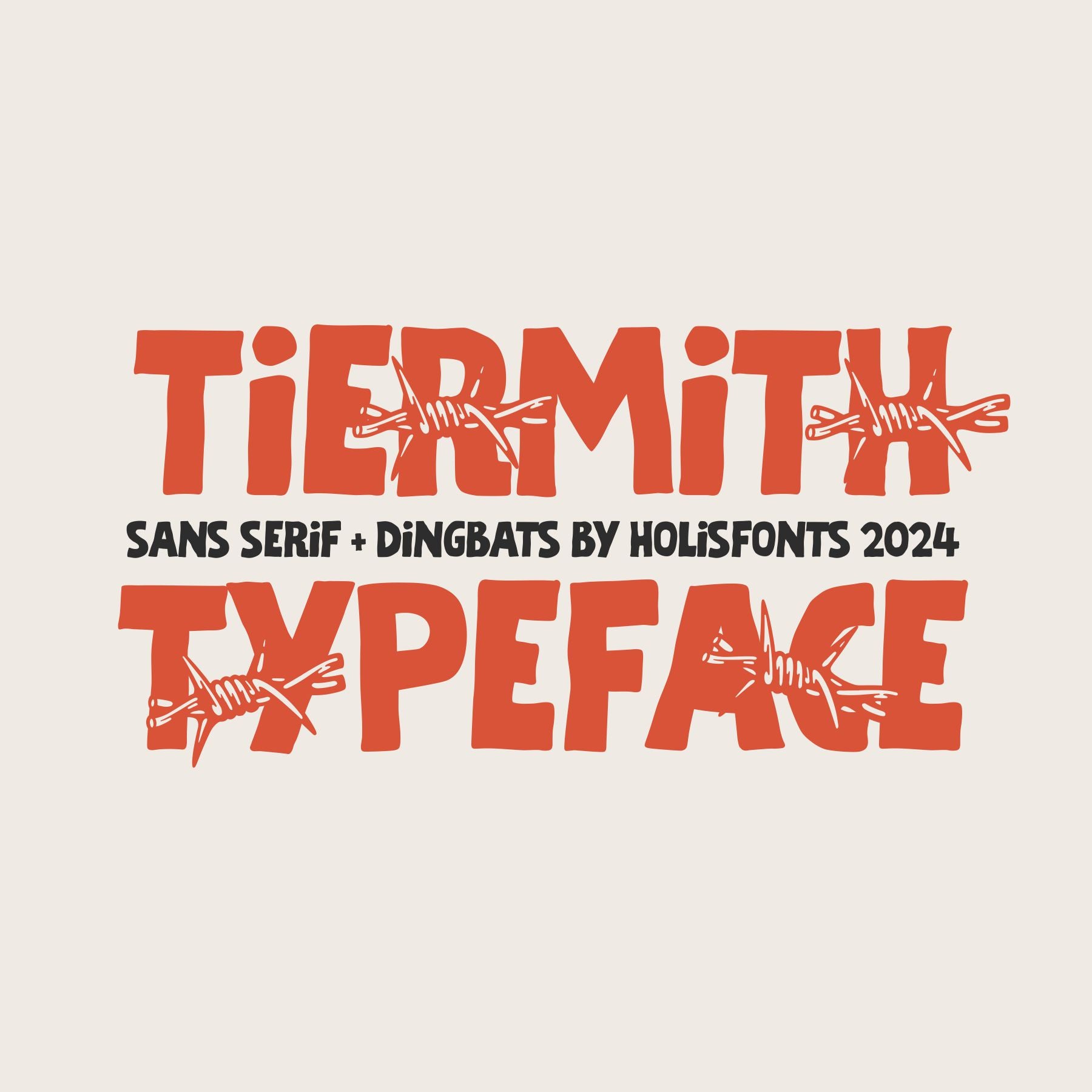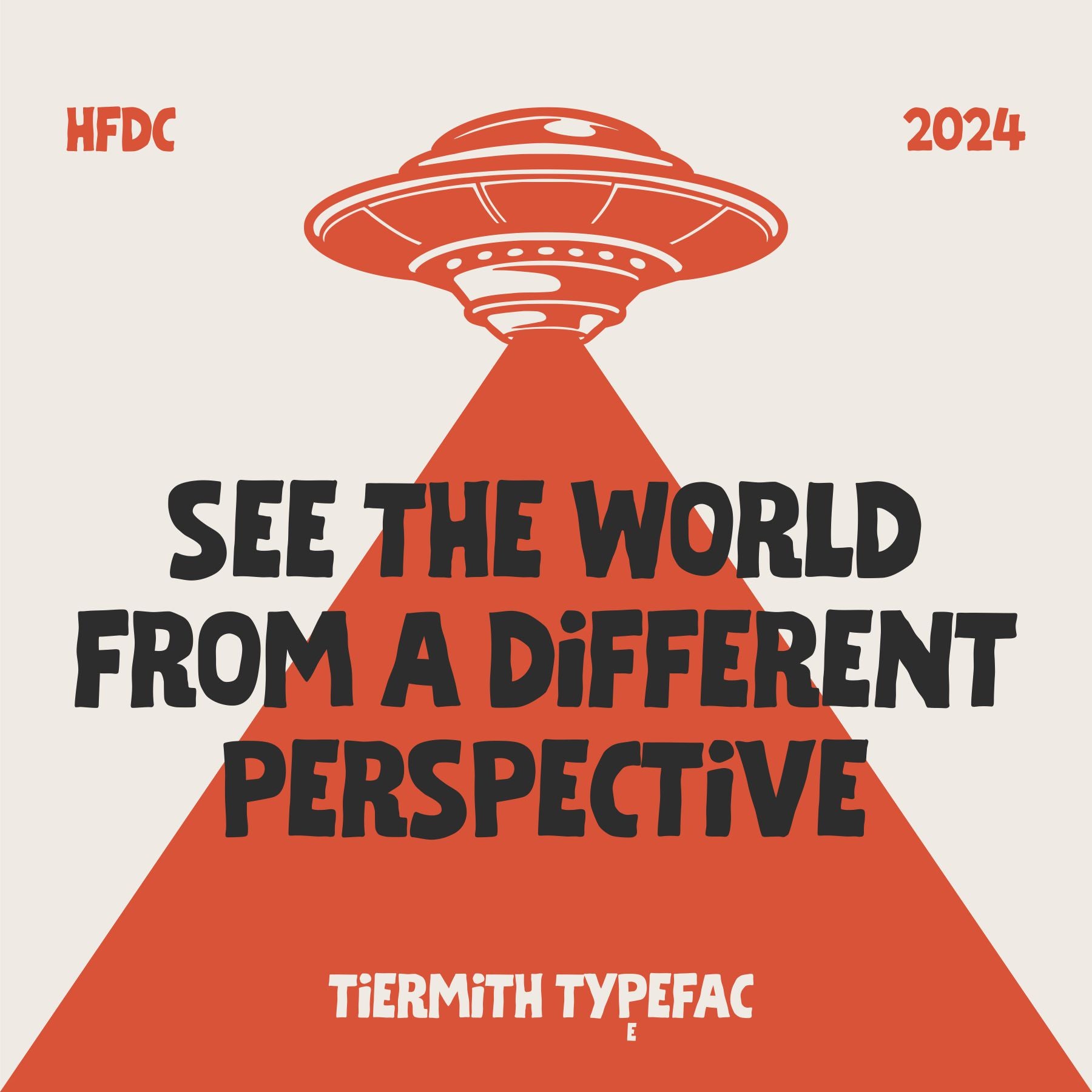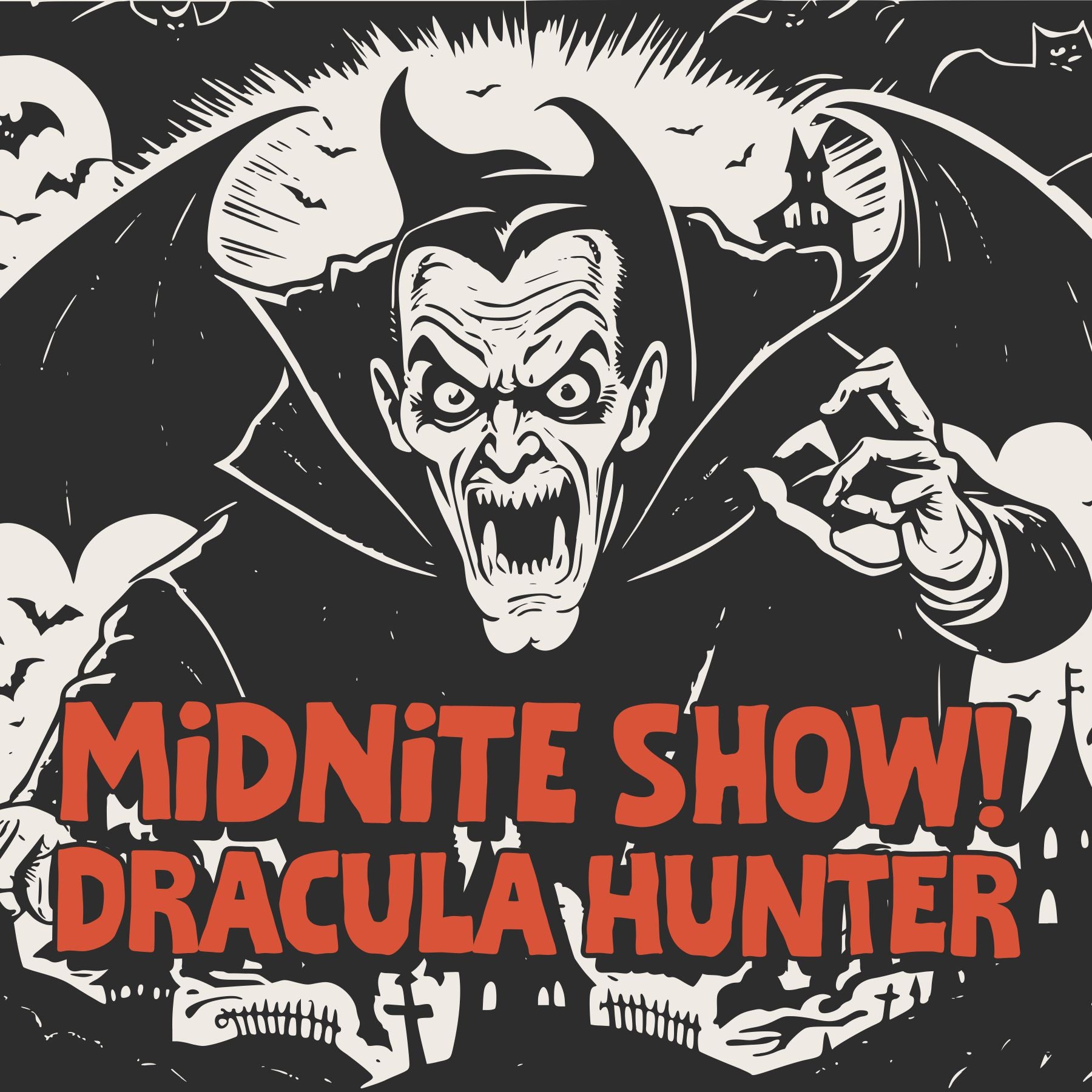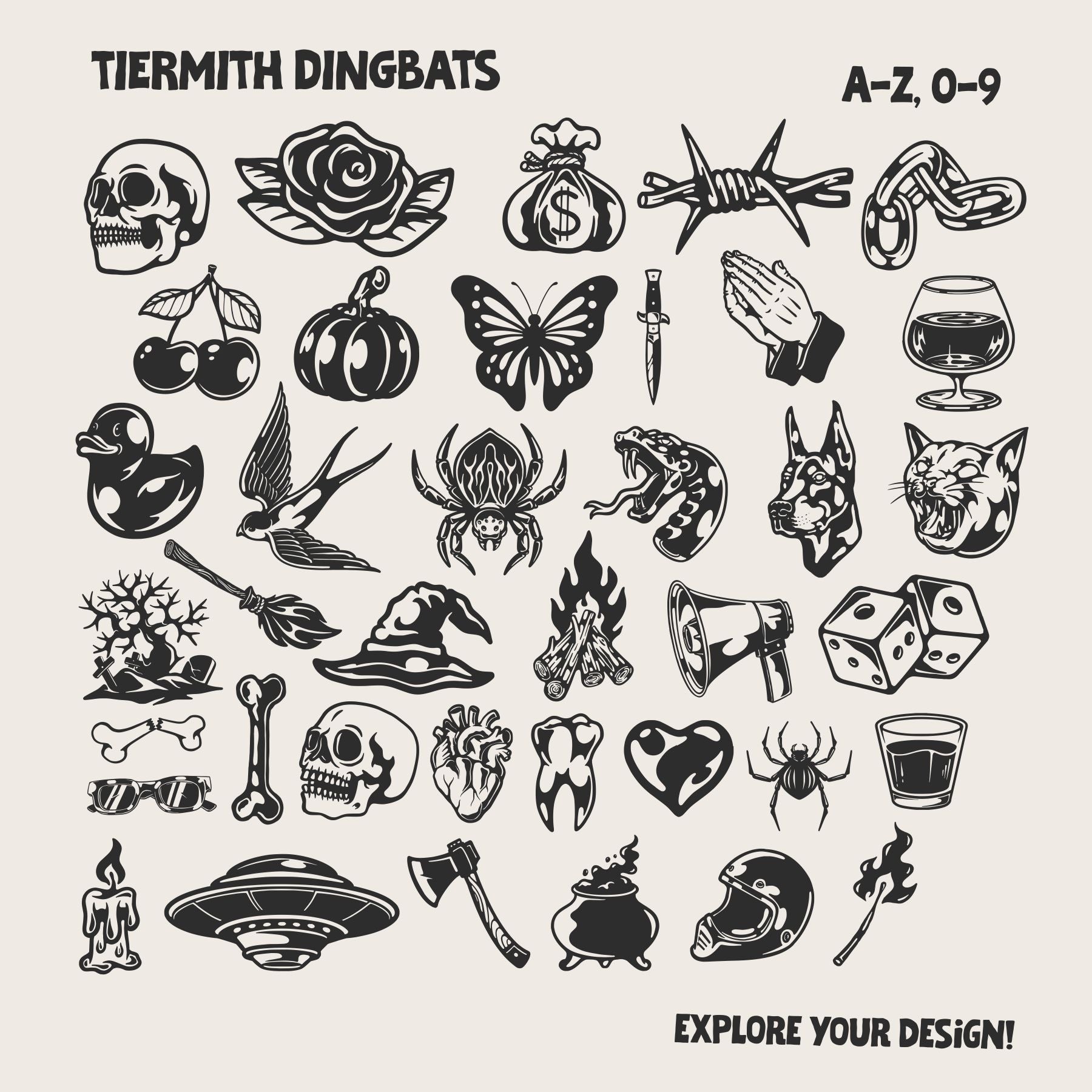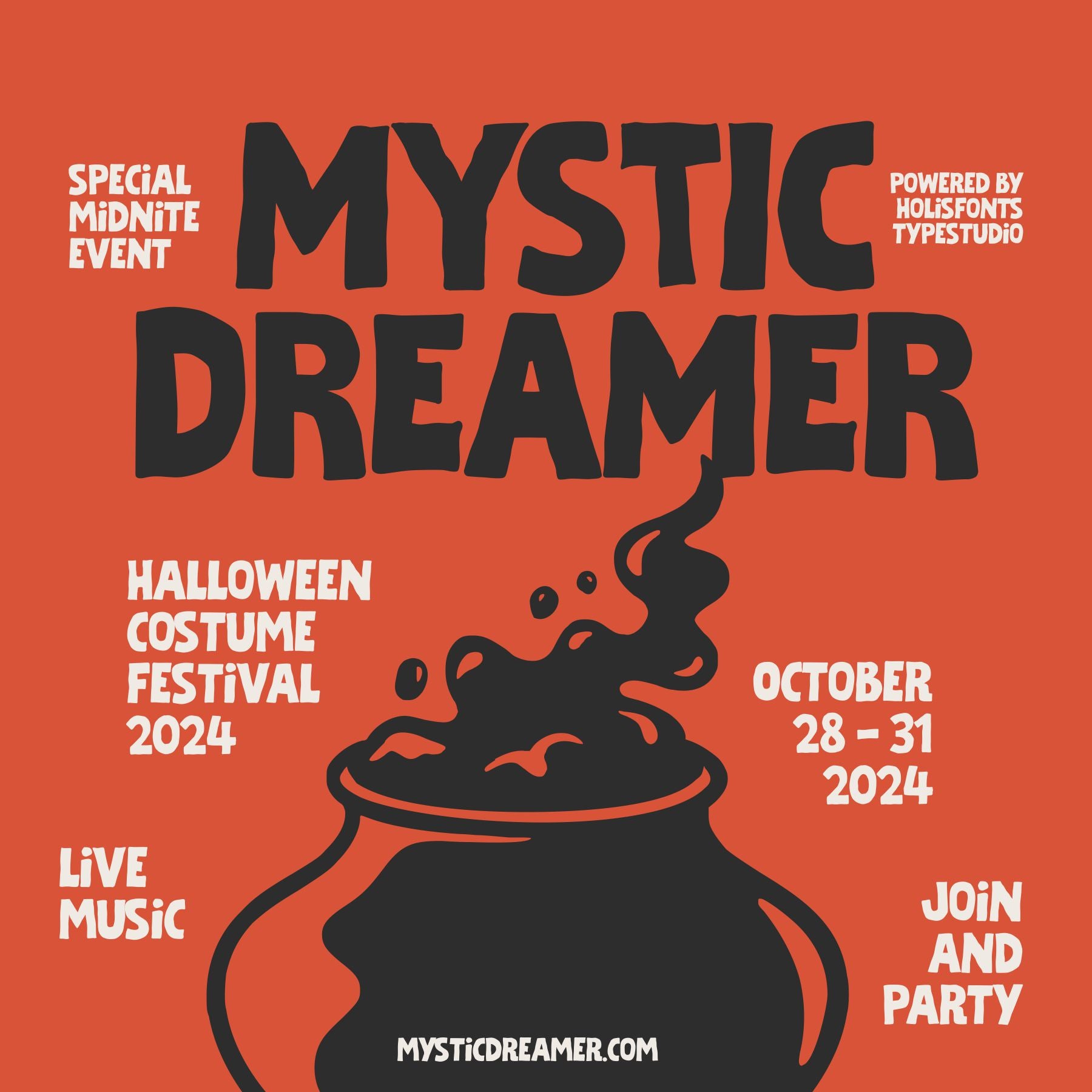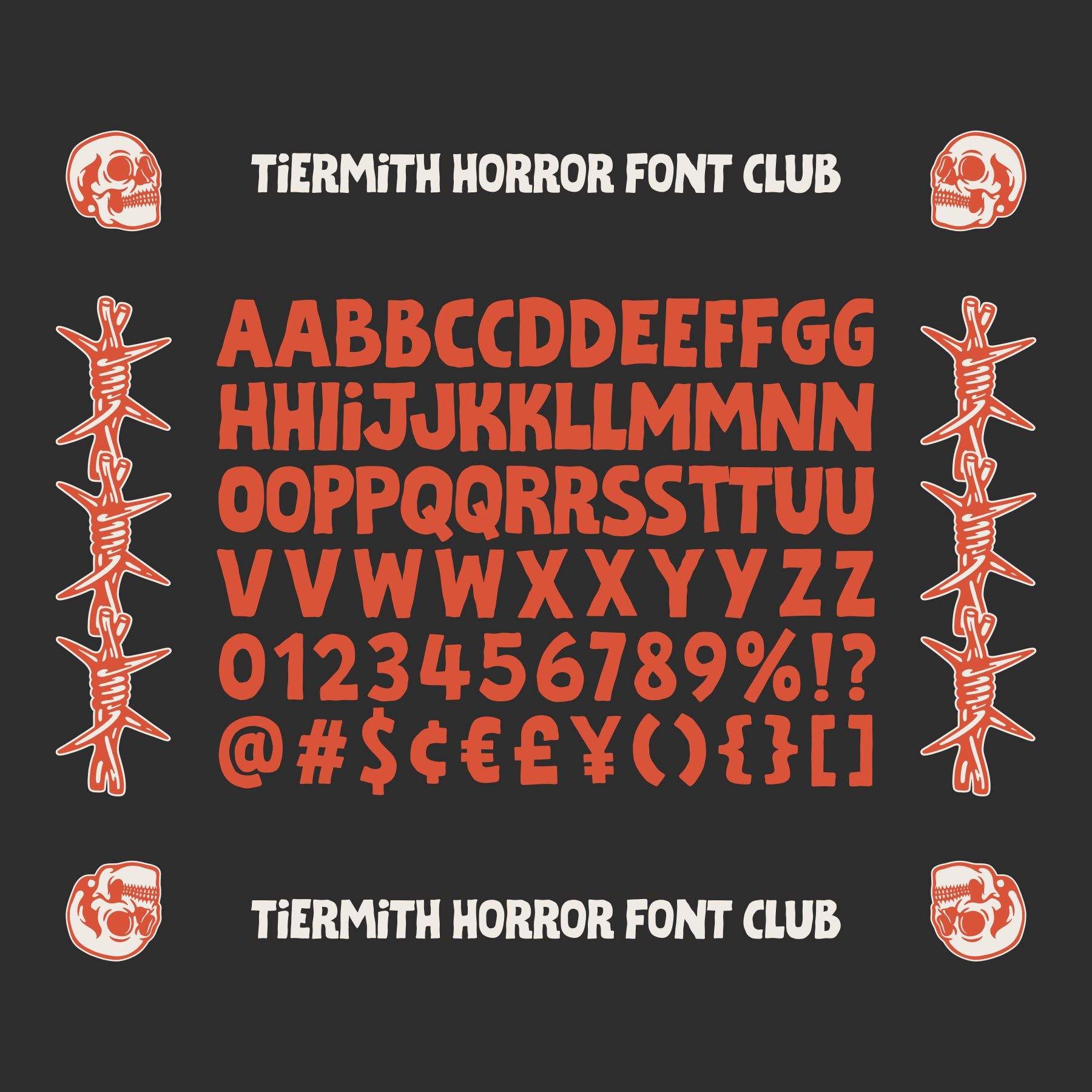
Tiermith Spooky Typeface and Dingbats
Tiermith is an all caps horror font with a rough and uneven design. It is drawn one by one on each character of letters, numbers and symbols. This font will remind you of the glory days of comics and horror films in its era. This font is suitable for designs on horror events such as halloween festival, movie posters, flyers, etc.